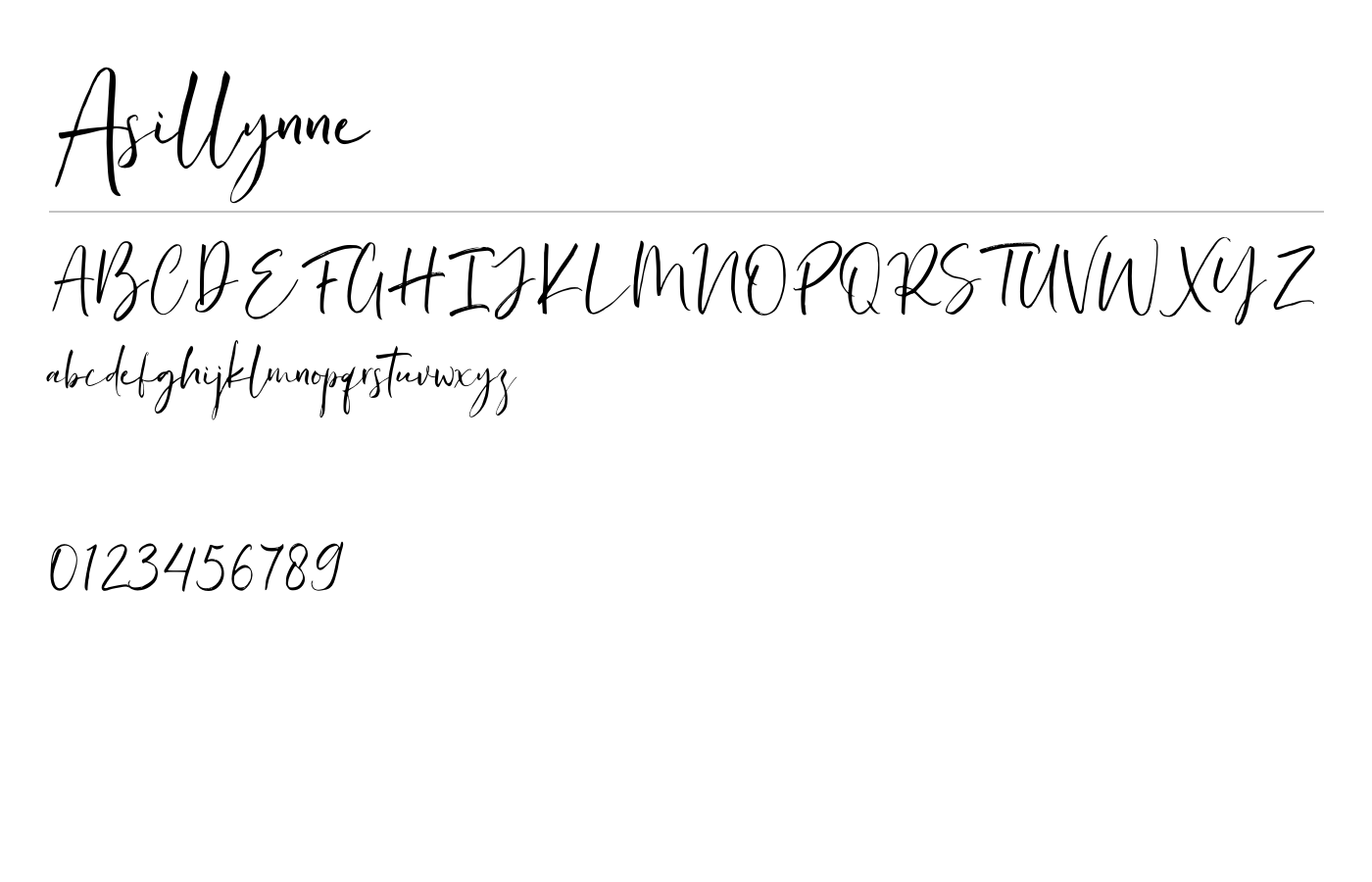
Asillynne is a delicate, handwritten script font with an elegant and airy feel, characterized by its thin, flowing strokes and natural, slightly irregular letterforms. It works beautifully for designs that seek a personal, artistic touch, making it ideal for wedding invitations, branding, and creative headlines that need a stylish yet approachable look. This font adds a graceful, modern flair while maintaining readability and charm.
Asillynne Font
About Asillynne Font
| Font family | Asillynne Font |
| Designer | Risca Anitawati |